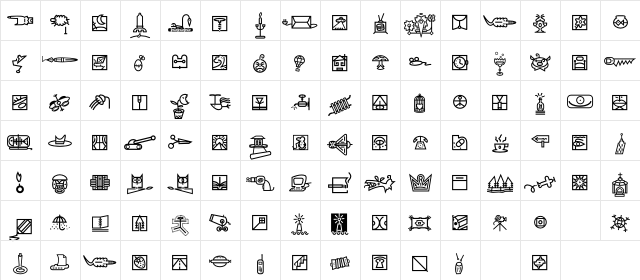
Complete DfBeoramaITC Regular glyph index. Displaying only characters natively supported by DfBeoramaITC Regular font.
DfBeoramaITC is a composed and adaptable typeface that performs quietly and consistently across a wide range of design contexts.